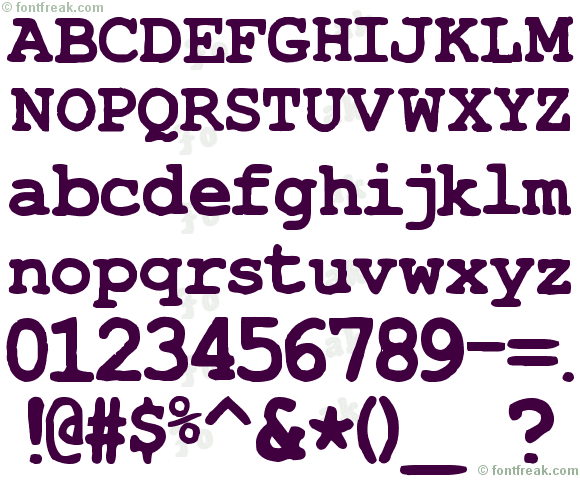
TypeWrong Smudged Bold
About Type Wrong
The Type Wrong font by Digital Graphic Labs is a captivating display typeface that combines a bold, smudged aesthetic with a unique character, making it an intriguing choice for various design projects. Released in 1998, this freeware font stands out with its distinctive visual characteristics, featuring a heavy stroke weight and a deliberate lack of precision that gives it an organic, hand-crafted feel. The irregularities in letterforms enhance its charm, creating an engaging visual experience that captures attention while maintaining readability. The spacing between characters is slightly tighter than traditional fonts, contributing to its striking presence on any medium.
Type Wrong is particularly well-suited for creative endeavors that require a strong visual impact. It excels in use cases such as movie posters, where its boldness can convey drama and intrigue. Additionally, it makes for eye-catching restaurant menus that want to evoke a sense of playfulness and creativity. Graphic designers may find it useful for branding projects that aim to communicate a fun and casual vibe, while content creators can leverage its unique style for social media graphics that stand out in crowded feeds. Wedding invitations can also benefit from its quirky charm, providing a fresh twist to traditional typography.
The target audience for the Type Wrong font includes graphic designers, small business owners, and content creators who seek to infuse their projects with personality and originality. This font not only adds a layer of creativity to designs but also invites viewers to engage with the message.
What sets the Type Wrong font apart is its ability to blend artistic flair with functional design. Its smudged, bold strokes evoke a sense of authenticity and playfulness that is hard to replicate, making it a memorable choice for anyone looking to make a statement. Don’t miss the opportunity to enhance your projects with the Type Wrong font free download, a distinctive addition to any designer's toolkit.